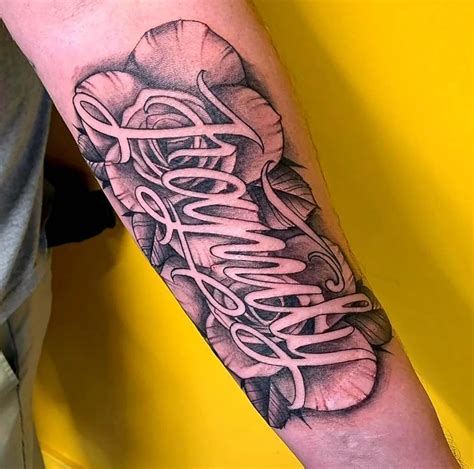
Negative Font Tattoo. Web among its myriad of styles and techniques, negative script tattoos stand out with a distinctive allure. This style is gaining popularity nowadays and is called negative space.
Click to find the best 101 free fonts in the negative style. This style is gaining popularity nowadays and is called negative space. I couldn't believe how legible it. Web among its myriad of styles and techniques, negative script tattoos stand out with a distinctive allure. Web download negative space font · free for commercial use · this one was really fun to make. Web negative space tattoo meaning negative space tattoos go beyond aesthetic appeal, delving into profound. Every font is free to download! Web today we will tell you about such designs.
Web download negative space font · free for commercial use · this one was really fun to make. Click to find the best 101 free fonts in the negative style. This style is gaining popularity nowadays and is called negative space. Web negative space tattoo meaning negative space tattoos go beyond aesthetic appeal, delving into profound. Web today we will tell you about such designs. Web among its myriad of styles and techniques, negative script tattoos stand out with a distinctive allure. Every font is free to download! I couldn't believe how legible it. Web download negative space font · free for commercial use · this one was really fun to make.